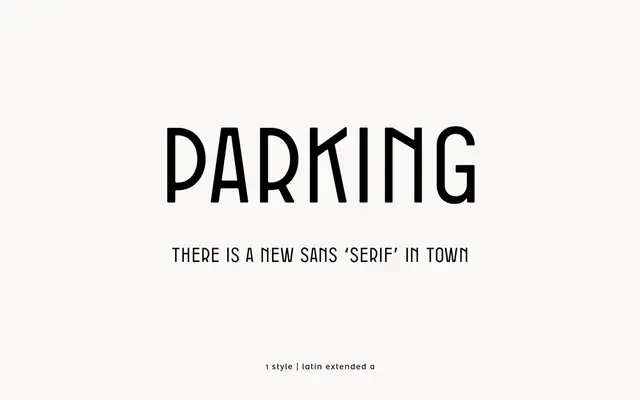
Parking
atipo foundry · Raul Garcia del Pomar, Ismael Gonzalez (atipo) · 2014
Parking specimen from atipo foundry
A single-weight stencil display from atipo with stylistic alternates, drawn from the rhythm of street and signage lettering.
A stencil display by atipo, supplied as a single Regular cut. Carries stylistic alternates that switch the look of selected characters along with fractions, superiors and ordinals, and reads as a piece of urban vernacular pulled into a usable typeface. Sits in posters, packaging and identity work that wants the bluntness of street signage without losing legibility.
Atipo position Parking as a single-weight display drawn from a stencil reading of street and signage lettering, supplied with stylistic alternates and full numeric features.